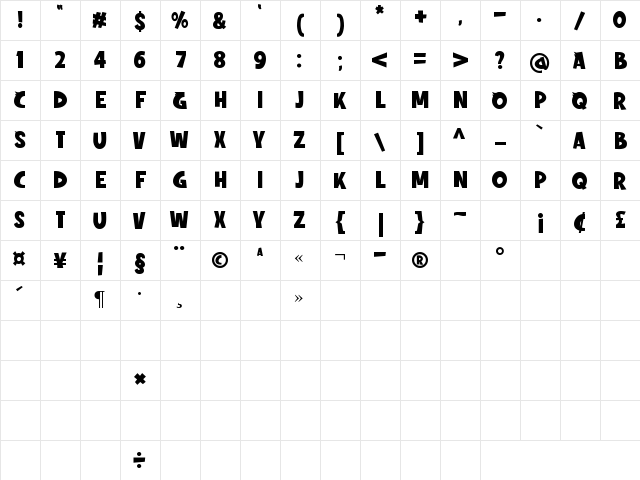
whoody Regular
| Designer | dumadi |
Design Context for whoody Typeface
whoody offers clean, dependable letterforms without strong stylistic allegiance, making it a practical choice for designers who need flexibility.